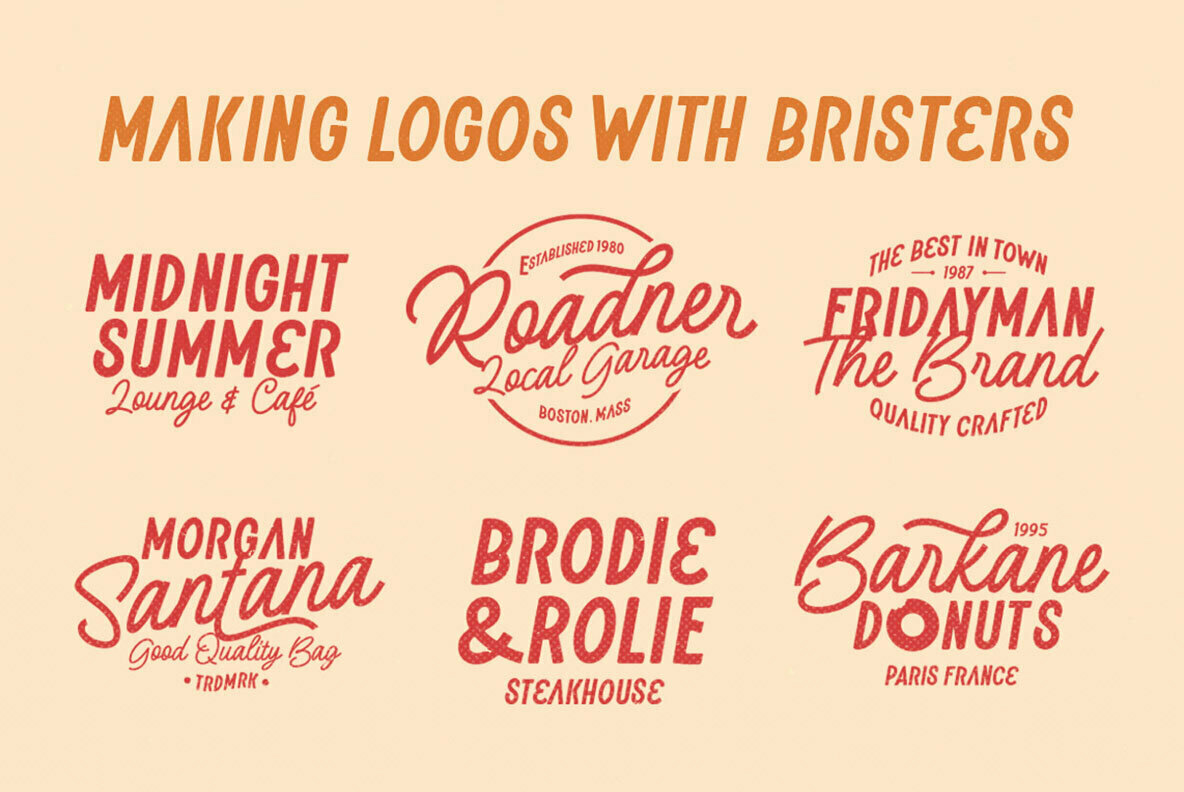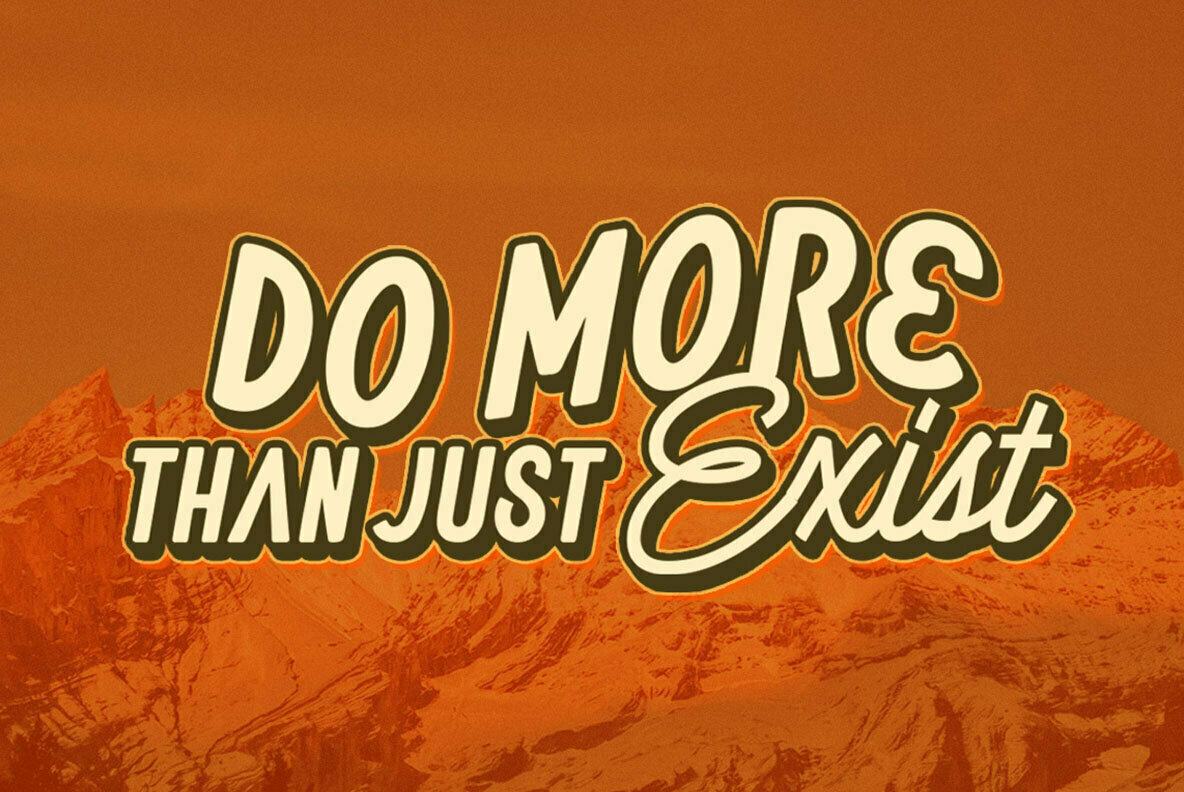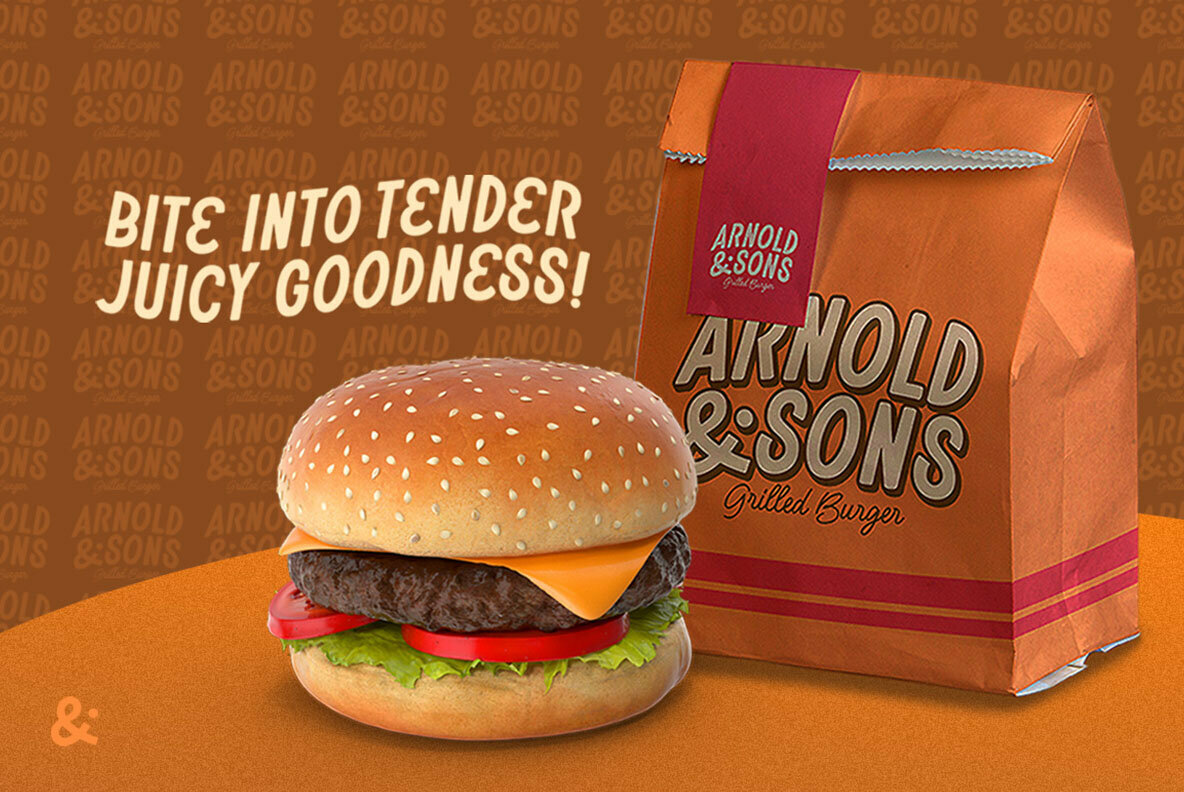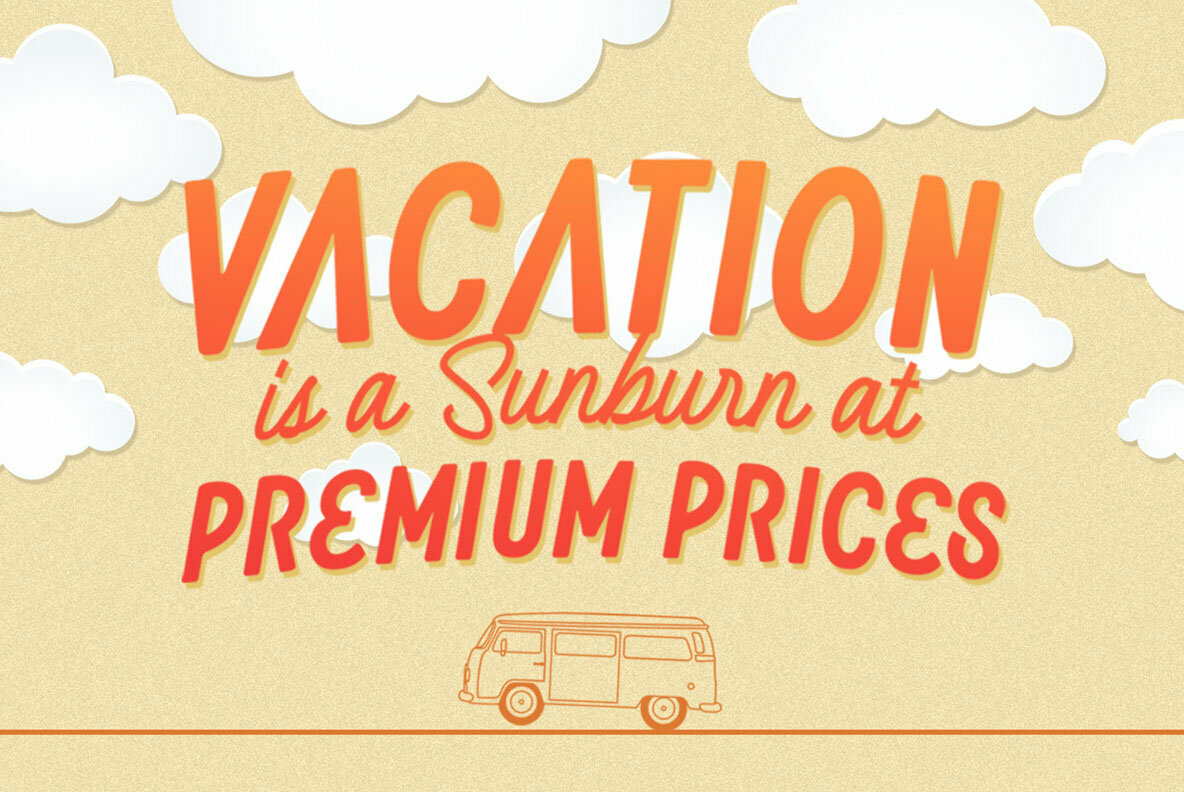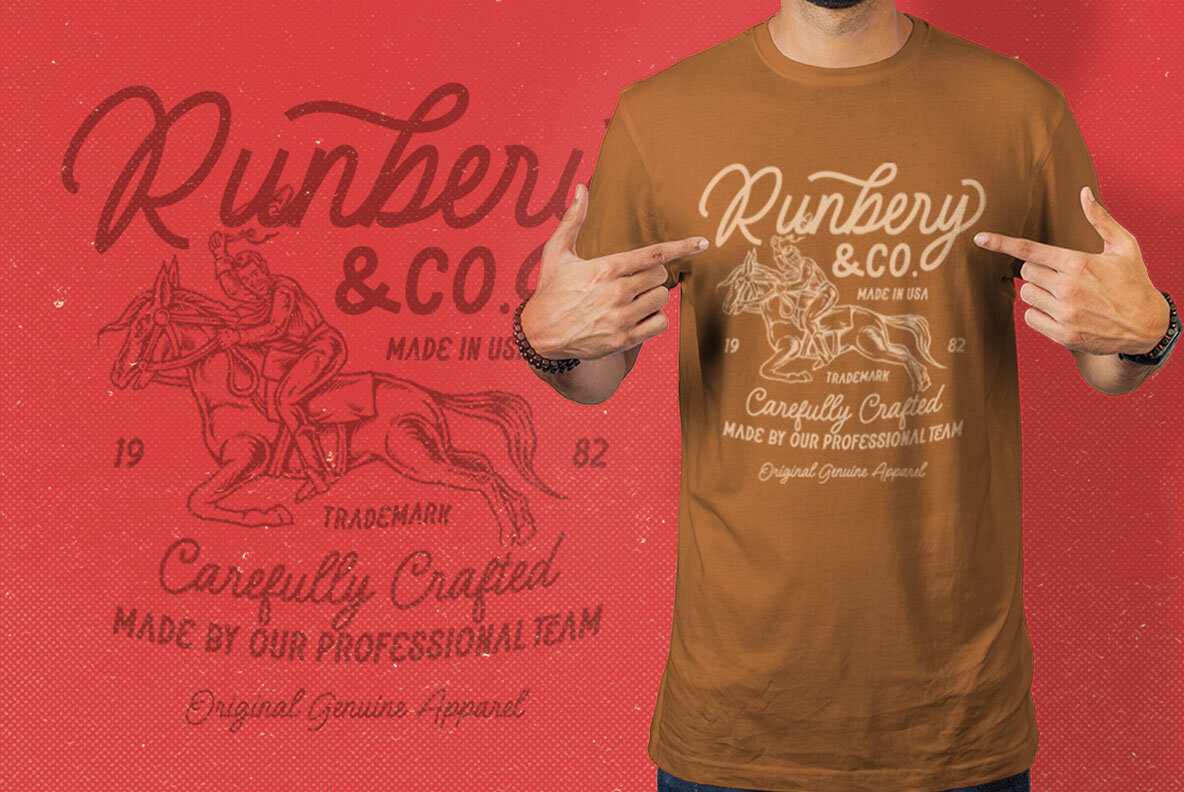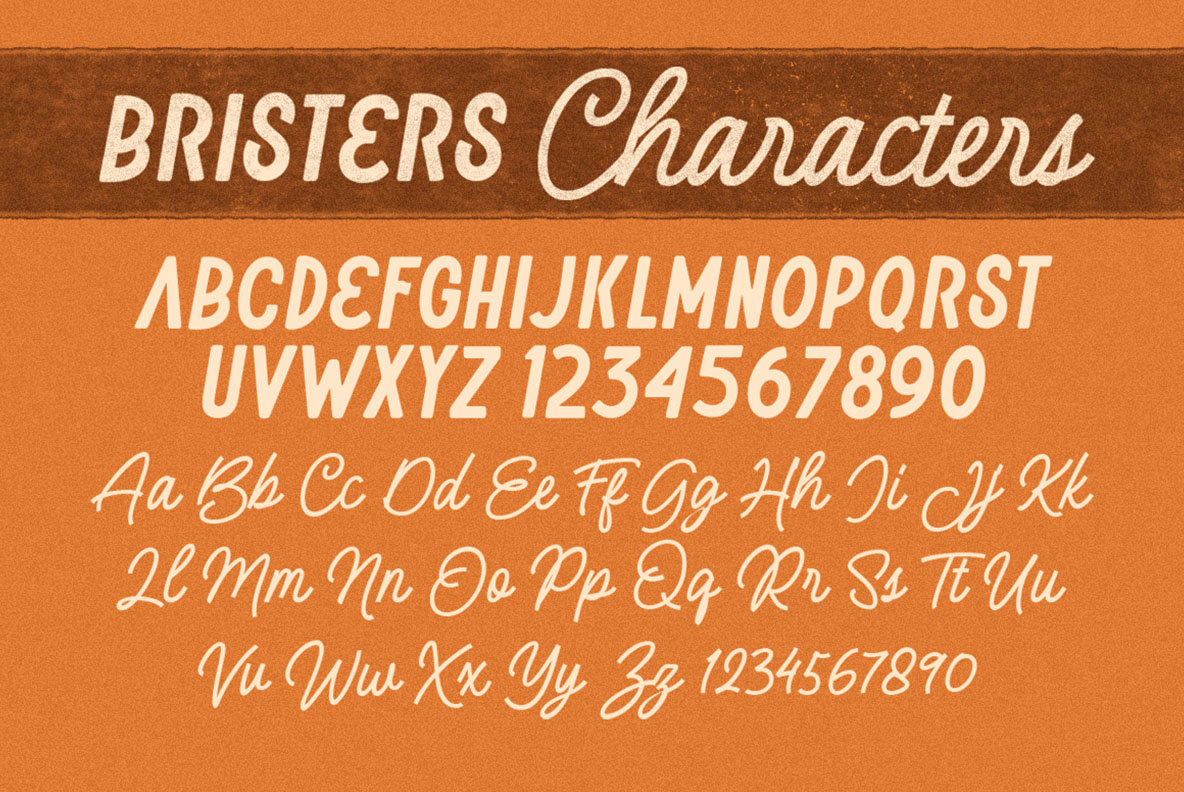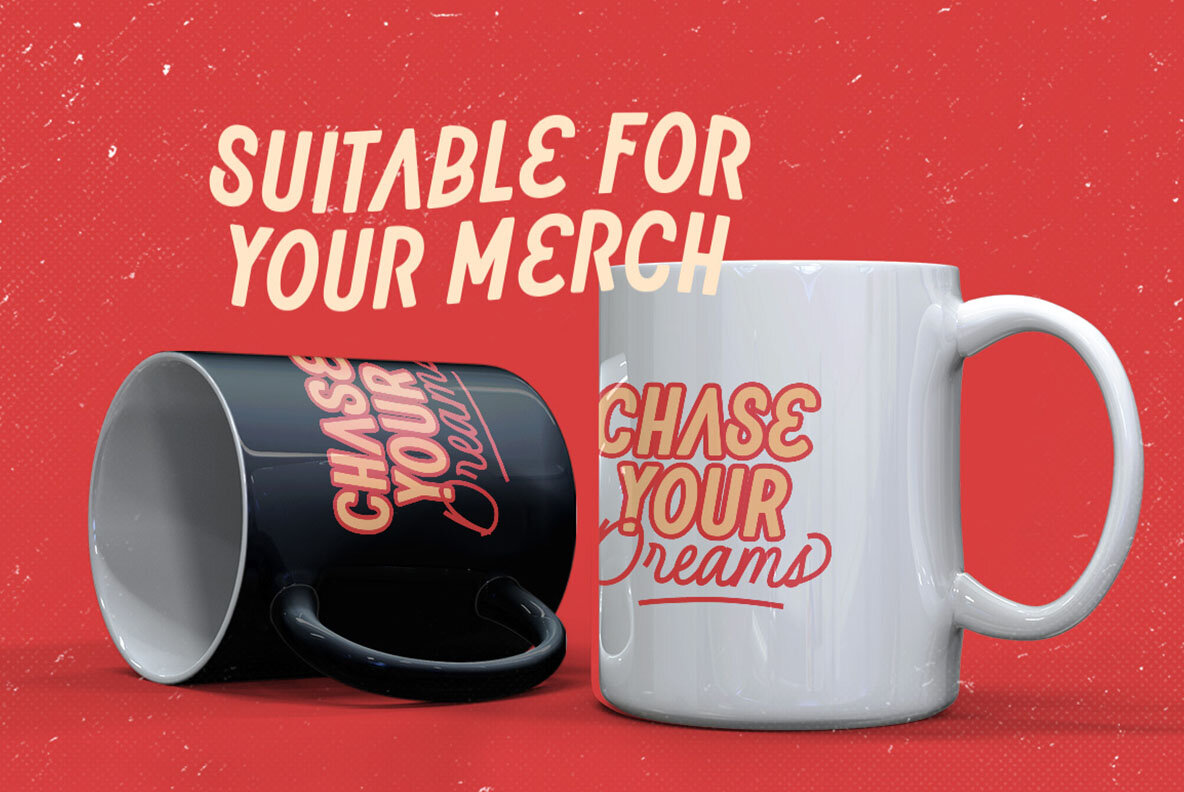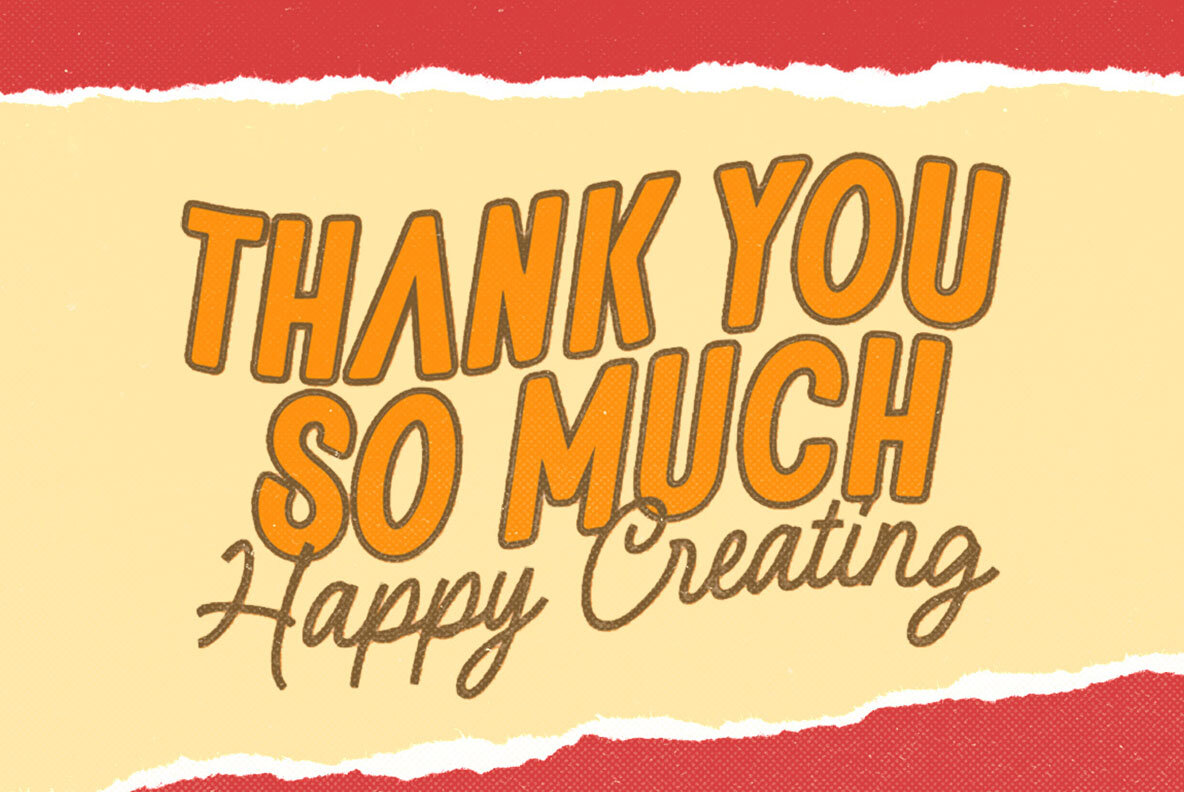
The Bristers Font
The Bristers by Letterhend Studio offers a distinctive font duo that includes a hand-drawn monoline script and a refined sans serif. This duo is ideal for projects with a vintage or adventurous theme. The package also includes extra illustrations and premade logos, enhancing its utility for creative projects. Ideal for headlines, display pieces, and logotypes, The Bristers creates a standout appearance across various applications. Whether you're designing logos for brands or crafting invitations and greeting cards, this font duo adds a touch of creativity.The Bristers: A Font Duo Balancing Script and Sans